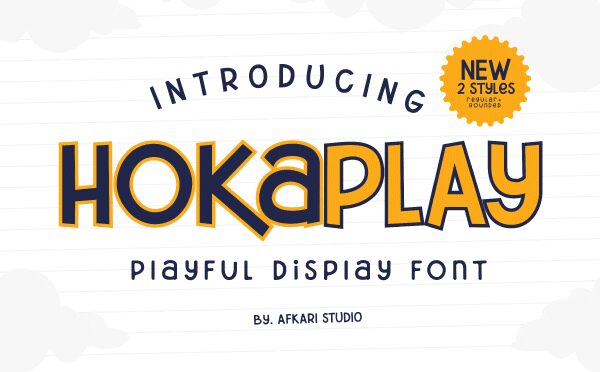
Hokaplay
Hokaplay - Playful Display Font
Hokaplay Playful Display Font suitable for logos, posters, school flyer, university banner, modern advertising design, product labels, cartoon, kid book, custom mug, pillow, t-shirts, youtube thumnail/cover, poster quote, editorial design, book / cover Title, website / blog, social media post, packaging designs and other designs.
Afkari Studio